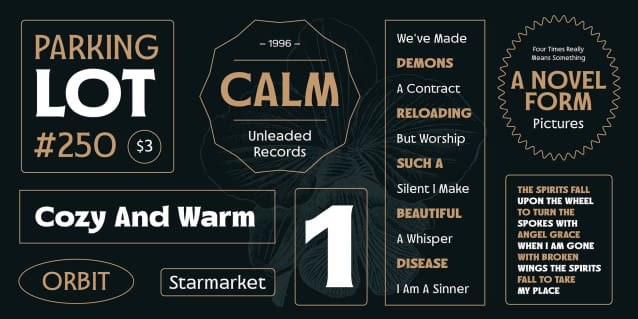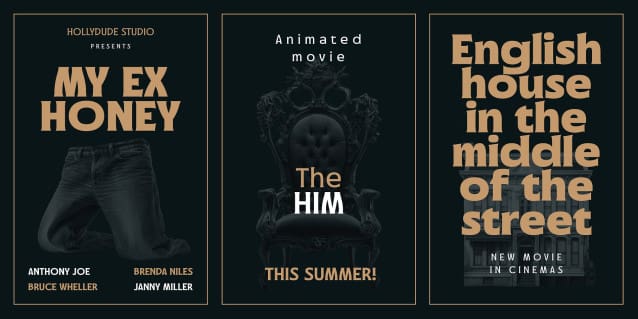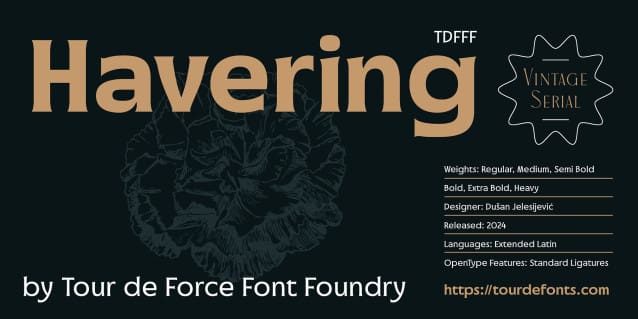
Havering Font Family
Havering Font Family, is another addition to Vintage Serial font families. Coming in 6 weights, It is display font family with gentle serifs in vintage manners. Opposite to the most common proportion of letters in fonts, Havering contain letters that are wide, condensed and with normal width. It was done with purpose in order to get more visual dynamic within words.
This style of font have wide range of use, from logos, branding, package design, signage to websites, apps and ebooks.
Havering Font contains standard Ligatures as OpenType features.